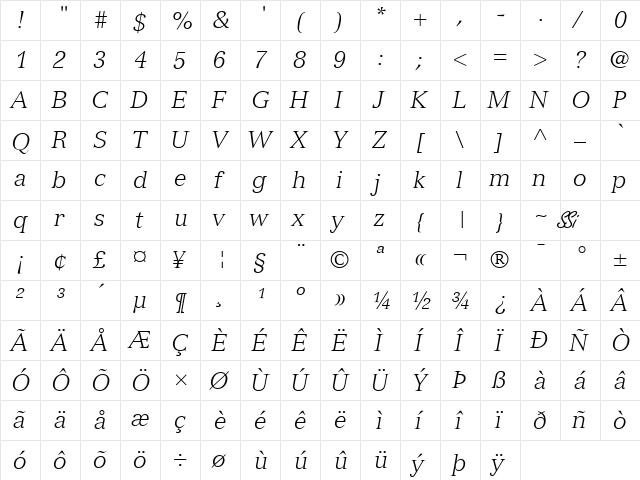
Nuance Light SSi Light Italic Font Preview
Design Context for Nuance Light SSi Typeface
Nuance Light SSi offers clean, dependable letterforms without strong stylistic allegiance, making it a practical choice for designers who need flexibility. The slanted form adds forward momentum and visual energy. The delicate stroke weight brings airiness and refinement to layouts.
Pro Tip: Try Nuance Light SSi for annotation and caption copy alongside an upright companion — the contrast in angle creates a dynamic but ordered typographic system.